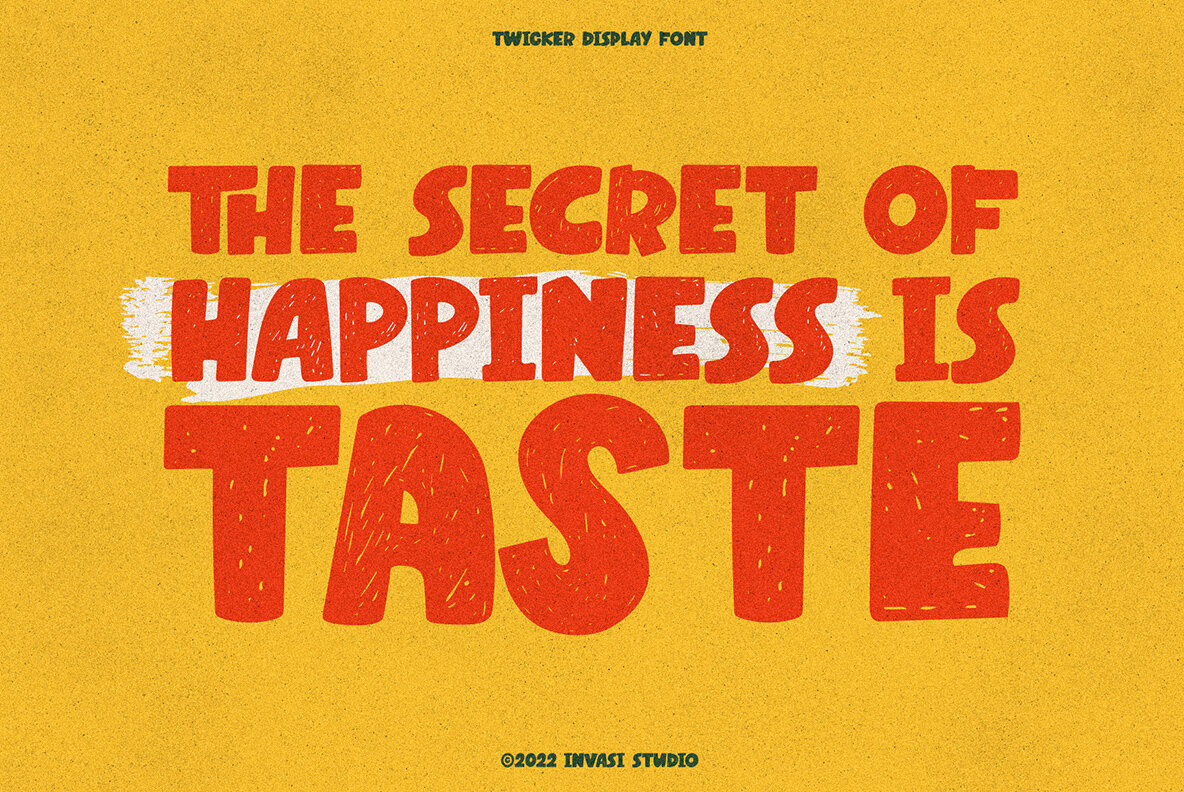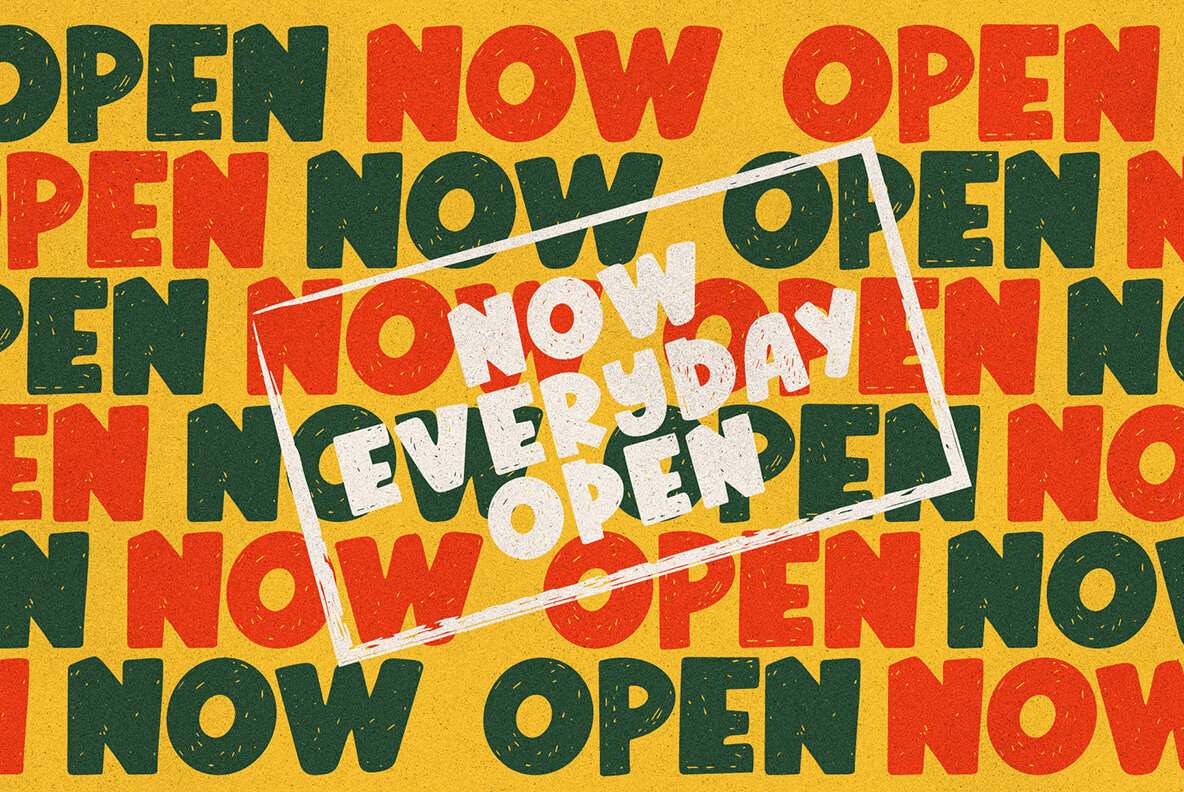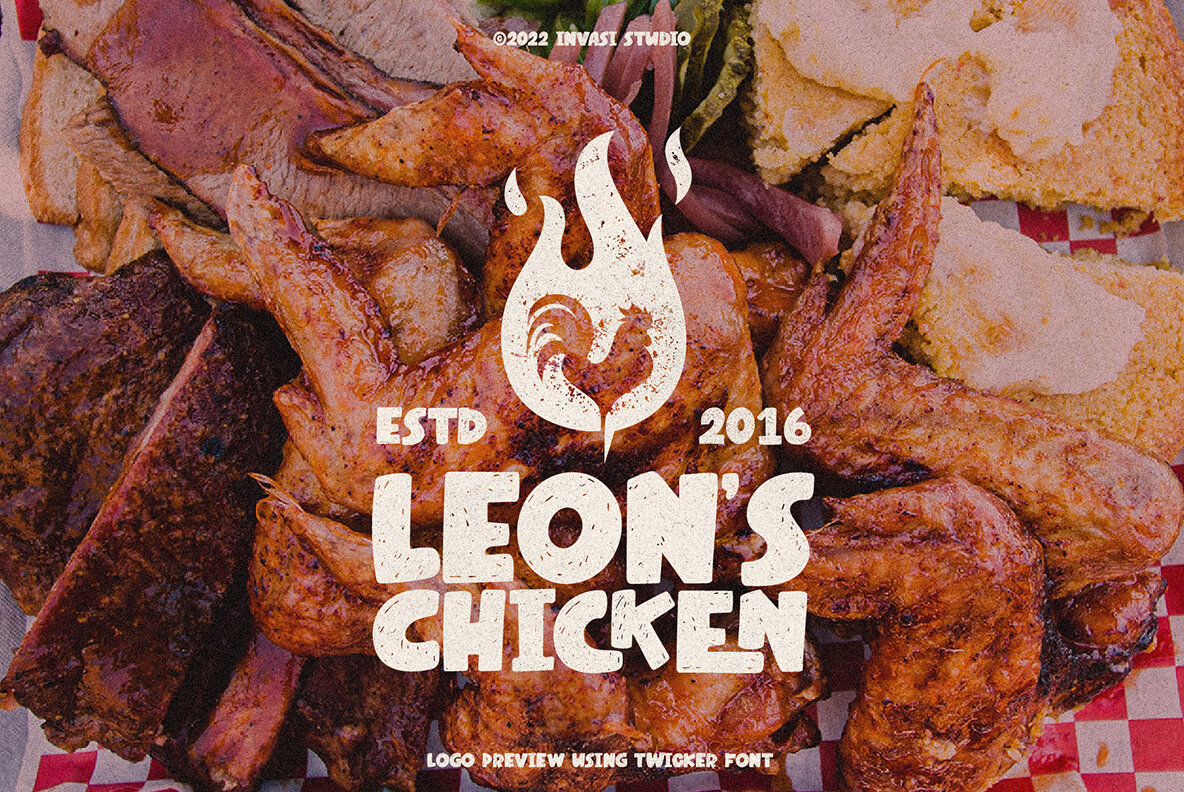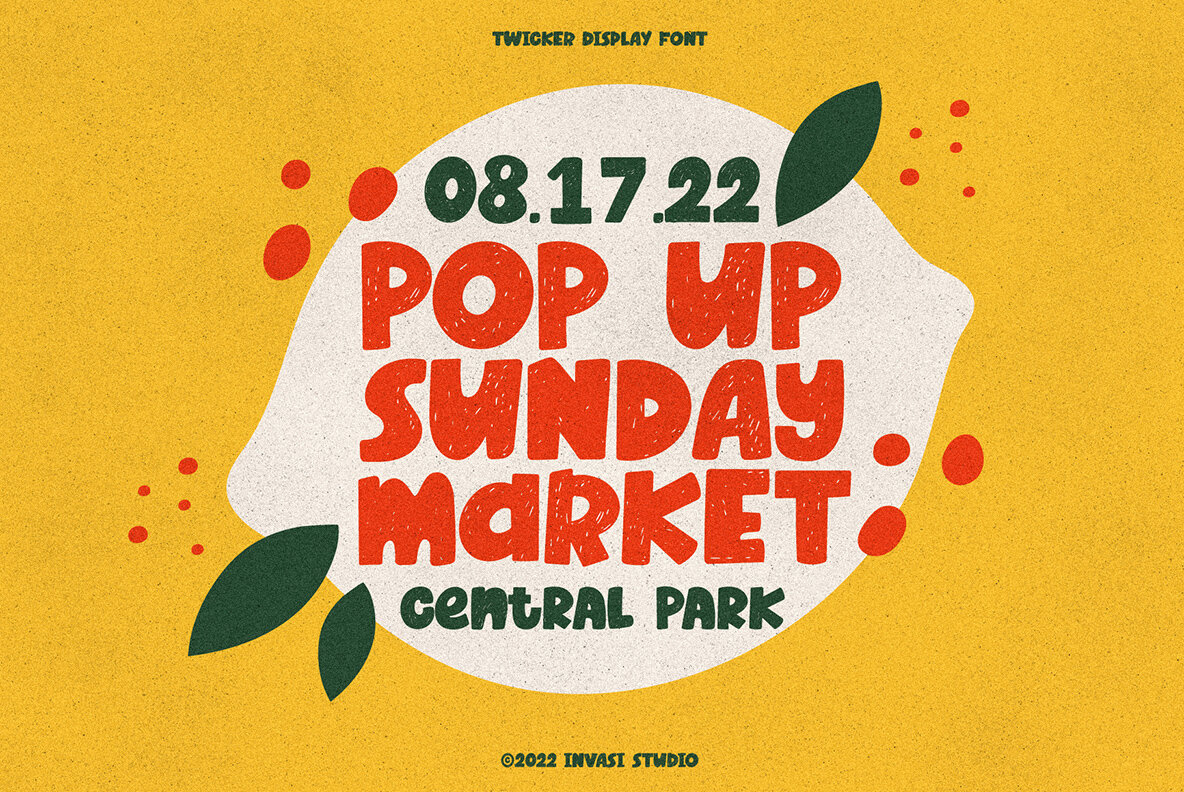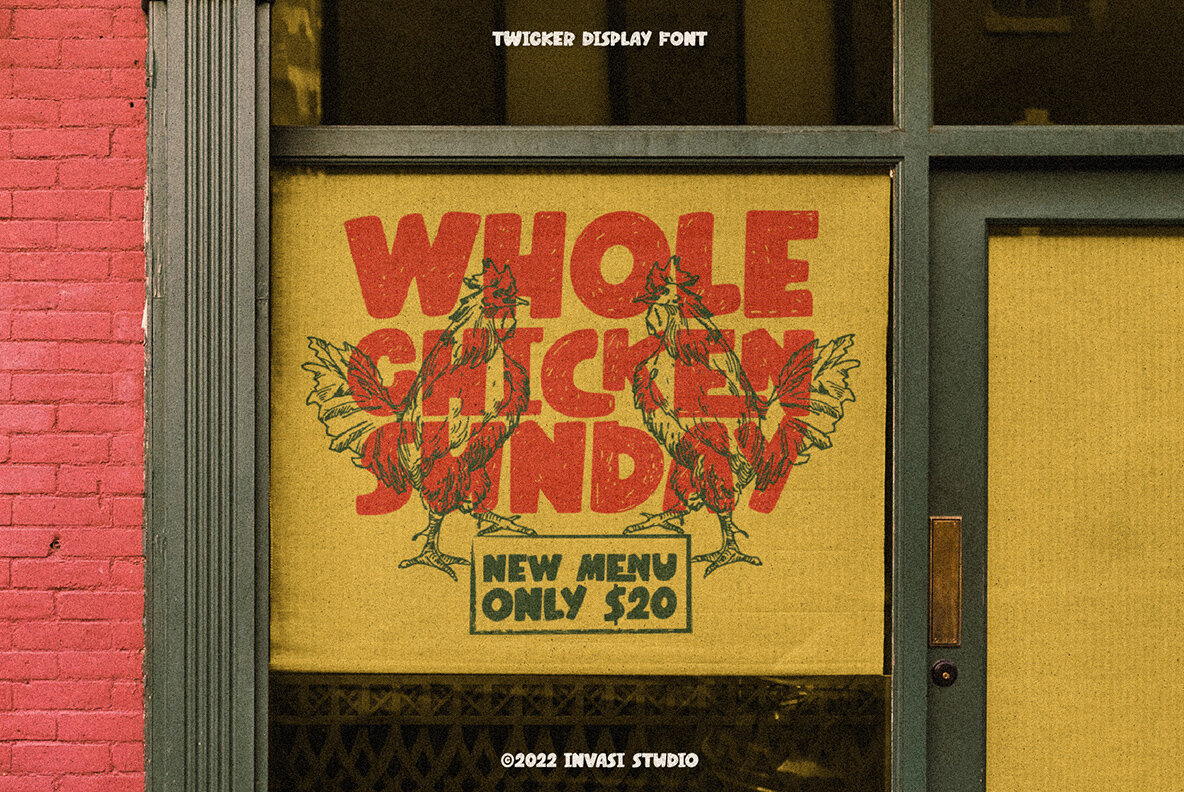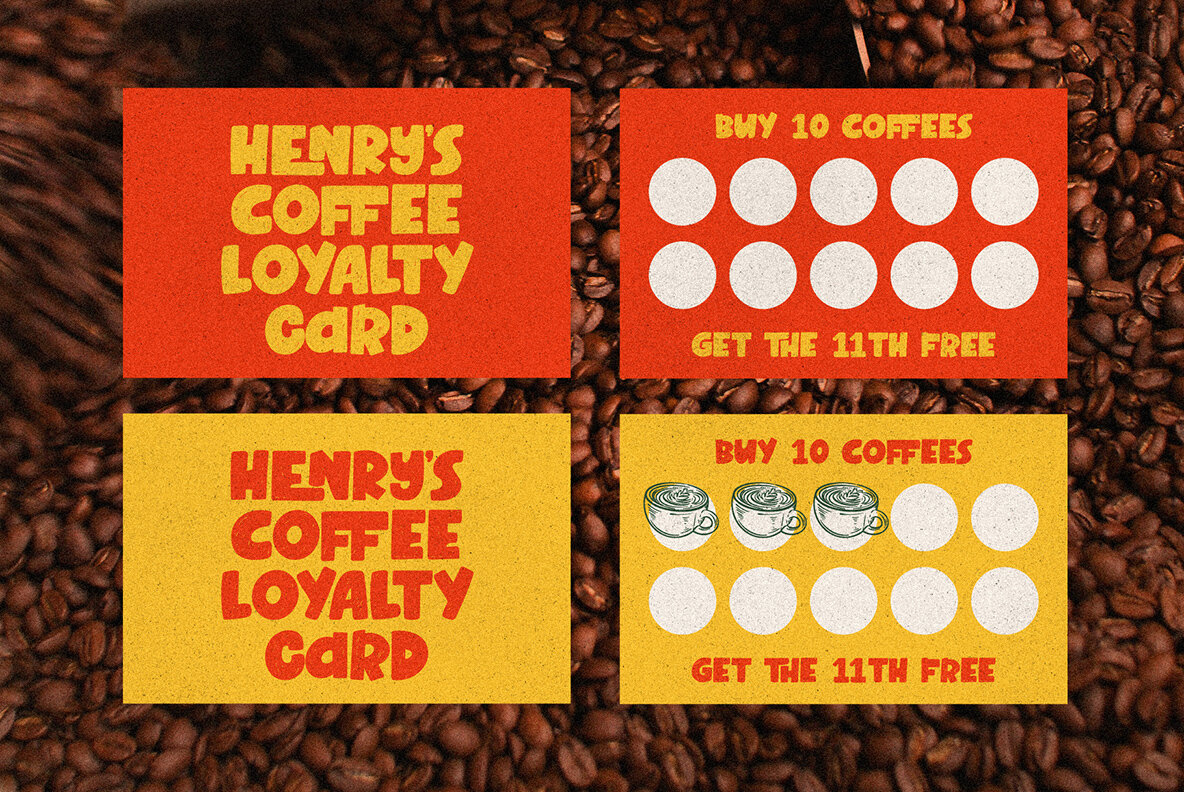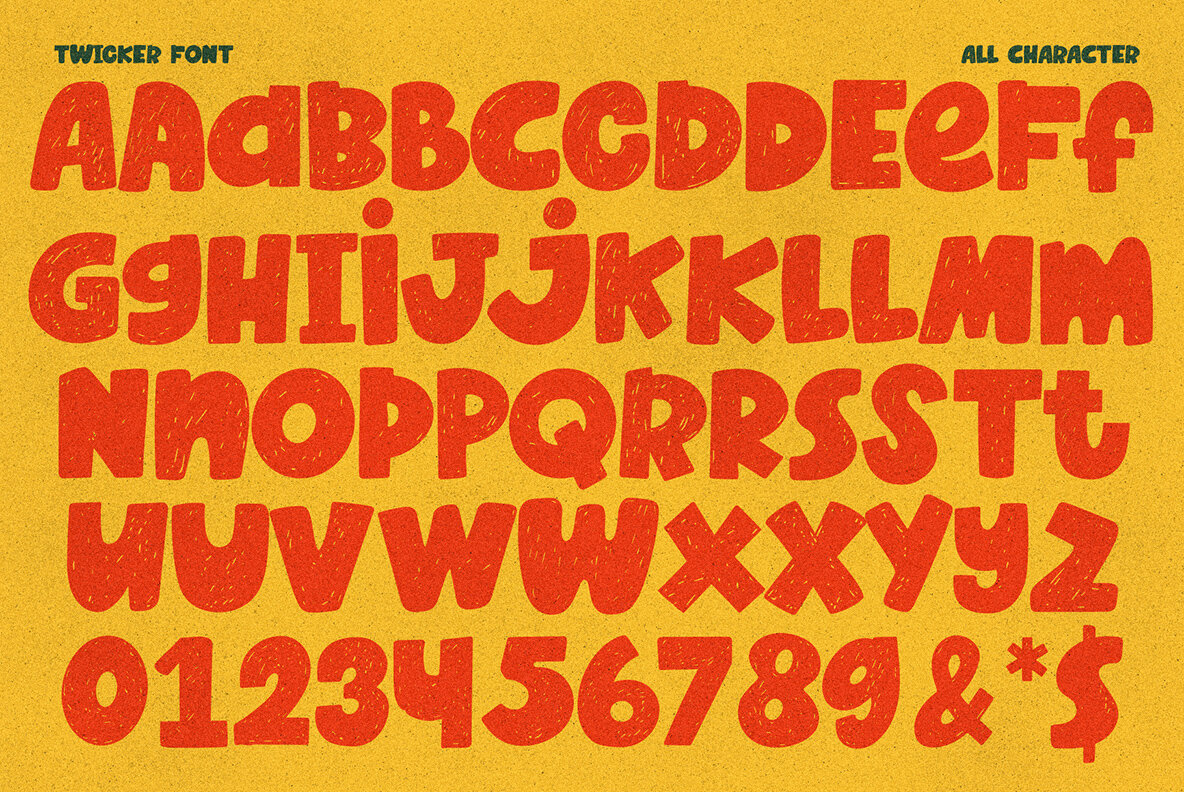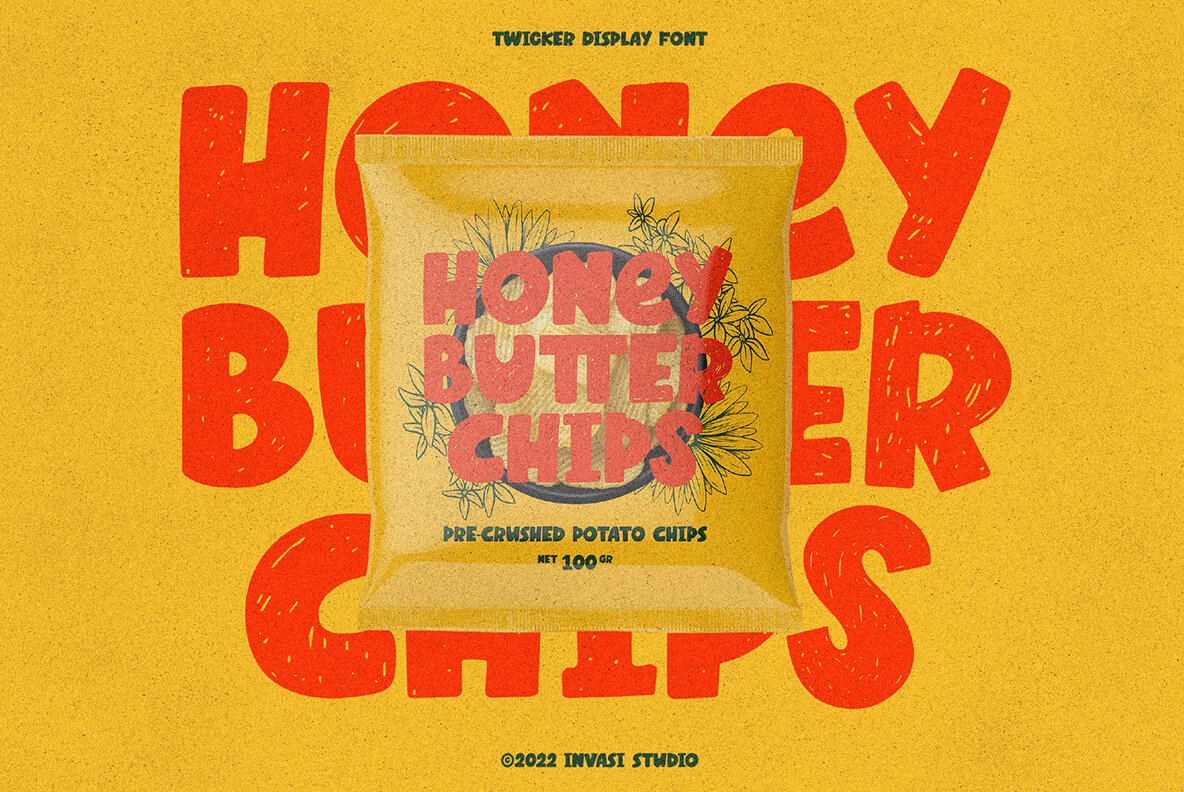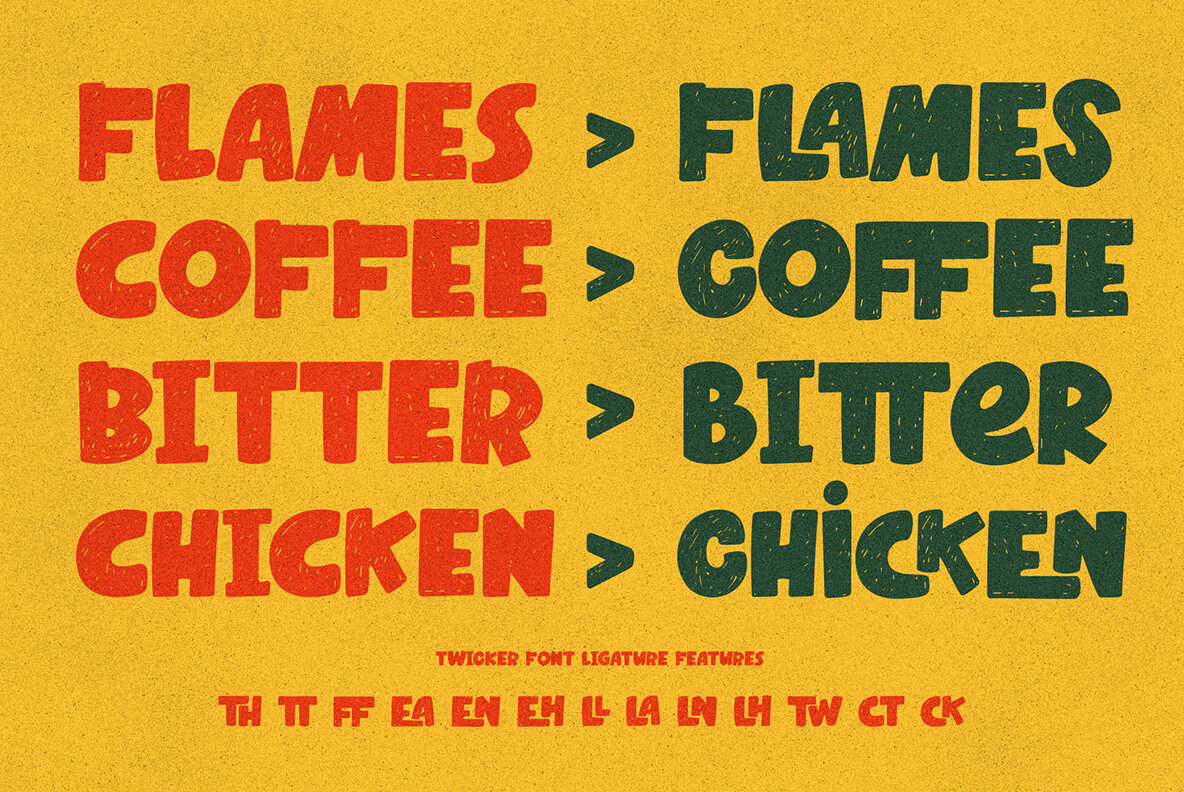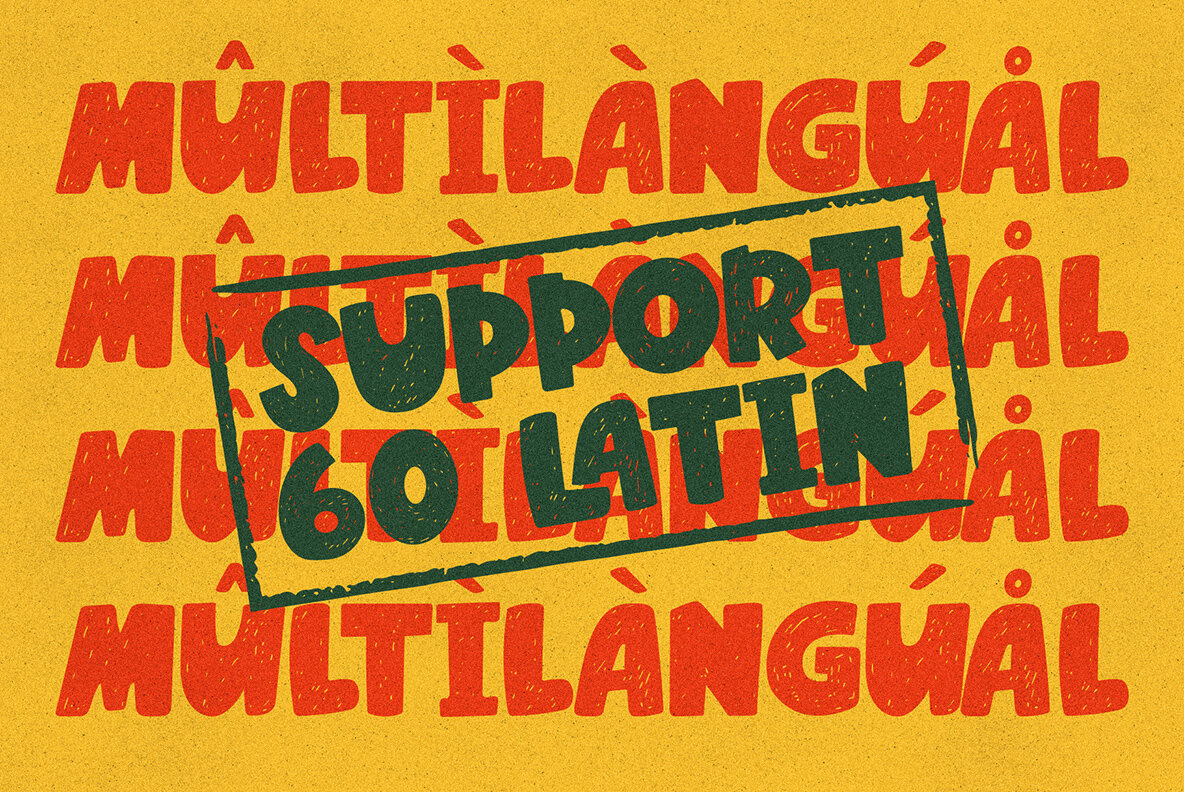
Twicker
Twicker by Invasi Studio offers a delightful variety of styles, including playful sketch, textured, and grunge-shaded formats. Its bubble-shaped glyphs and hand-drawn look make it an appealing choice for creative projects. Whether you are working on branding or packaging that requires a whimsical touch, Twicker provides the versatility you need.Twicker: A Playful Font with Unique Style